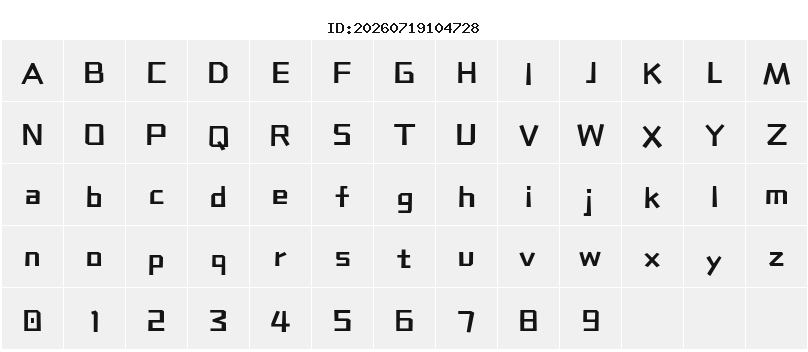
YEFONTKuangXiangHei Preview
• Font Name: YEFONTKuangXiangHei
• Full Font Name: 也字工廠狂想黑 標準
• Manufacturer: 也字工厂
About YEFONTKuangXiangHei.TTF
YEFONTKuangXiangHei.TTF is a modern, elegant sans-serif font designed for ultimate readability and visual harmony. Perfect for branding, headlines, web design, and print materials.